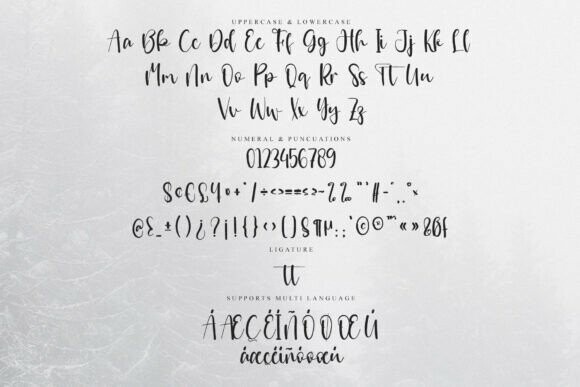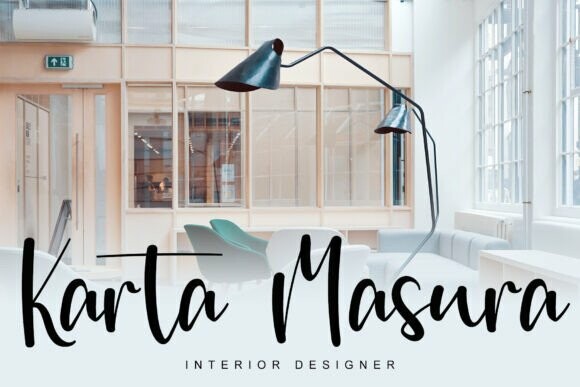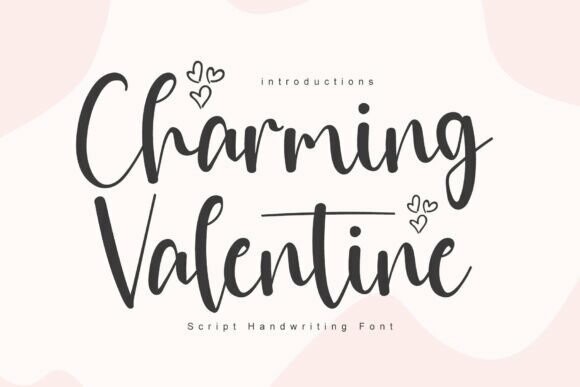
Charming Valentine Font
Designer: YanStudio
Charming Valentine Font is a festive and playful typeface adorned with enchanting swashes. Perfect for adding a touch of holiday magic to your Christmas cards, decorations, and more. Spread the joy of the season with this whimsical font.